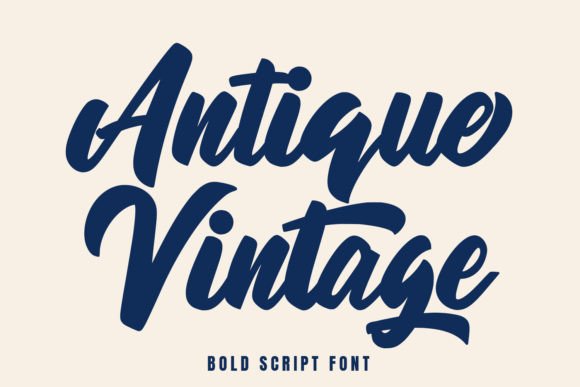
The Timeless Charm of Antique Vintage Font
I’ll never forget the design project that led me to discover the Antique Vintage font. I was working on a branding project for a luxury candle company, and I needed a font that would evoke a sense of nostalgia and sophistication. After hours of scouring font libraries and searching online, I stumbled upon Antique Vintage – a beautiful brush script font that immediately caught my eye.
The font’s thick and prominent strokes, interconnected letters, and flowing handwritten look made it the perfect fit for the project. It added a touch of elegance and refinement to the brand’s identity, and I knew right then that I had to share my discovery with fellow designers and creative enthusiasts.
- ✨ Bold and Impactful: Antique Vintage’s thick strokes make it perfect for headlines, titles, and emphasis text.
- ✅ Flowing Handwritten Look: The interconnected letters create a beautiful, flowing script that’s perfect for adding a touch of elegance to designs.
- ✨ Highly Versatile: This font can be used for a wide range of projects, from luxury branding to wedding invitations and more.
While Antique Vintage is an amazing font, there are a few things to keep in mind:
- ⚠️ Legibility at Small Sizes: Due to its bold strokes and interconnected letters, Antique Vintage can be challenging to read at small font sizes.
- 🤔 : While it’s perfect for headlines and titles, Antique Vintage might not be the best choice for body text due to its decorative nature.
The story behind Antique Vintage’s creation is shrouded in mystery, but it’s said that the font was inspired by vintage advertisements and signage from the early 20th century. The designer, who wishes to remain anonymous, was tasked with creating a font that would evoke a sense of nostalgia and luxury. After months of research and experimentation, Antique Vintage was born.
| Font Name | Antique Vintage Font |
| Author | Arendxstudio |
Q: What type of projects is Antique Vintage best suited for?
A: Antique Vintage is perfect for luxury branding, wedding invitations, and high-end marketing materials.
Q: Can I use Antique Vintage for body text?
A: While it’s possible, Antique Vintage is best used for headlines and titles due to its decorative nature.
Q: Is Antique Vintage a difficult font to read?
A: Antique Vintage can be challenging to read at small font sizes, but it’s perfectly legible at larger sizes.